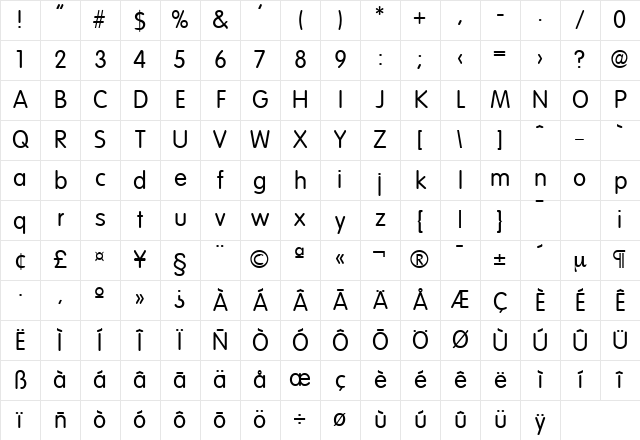
Complete Volkswagen-Serial DB Regular glyph index. Displaying only characters natively supported by Volkswagen-Serial DB Regular font.
Volkswagen-Serial DB is a composed and adaptable typeface that performs quietly and consistently across a wide range of design contexts.